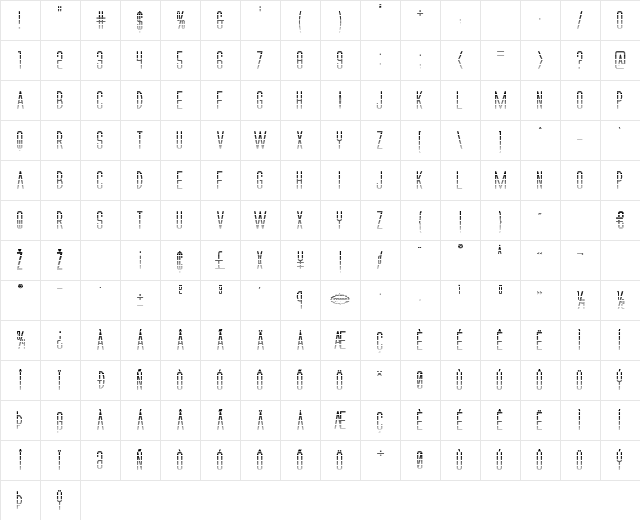
Alien League II Gradient Bold Bold Free Font
Alien League II Gradient Bold Bold
Complete Alien League II Gradient Bold Bold glyph index. Displaying only characters natively supported by Alien League II Gradient Bold Bold font.
Design Context for Alien League II Gradient Bold
Alien League II Gradient Bold is a composed and adaptable typeface that performs quietly and consistently across a wide range of design contexts. Its bold stroke weight gives it real presence on the page.